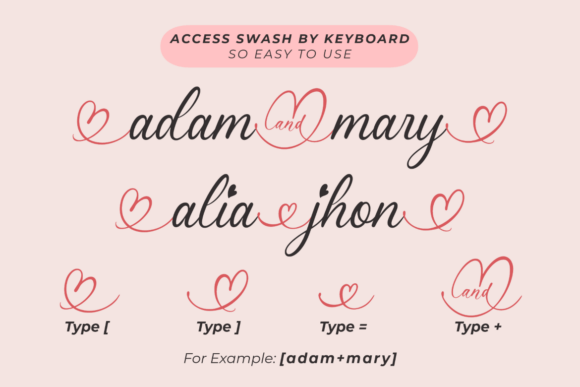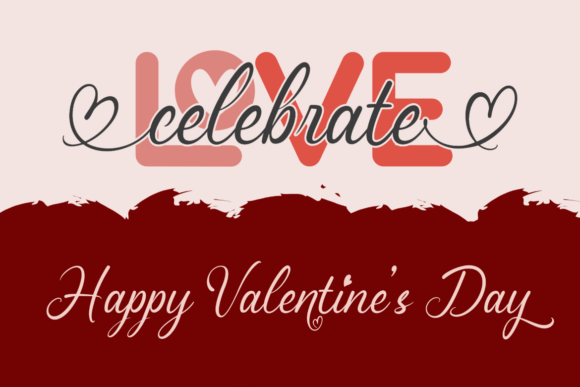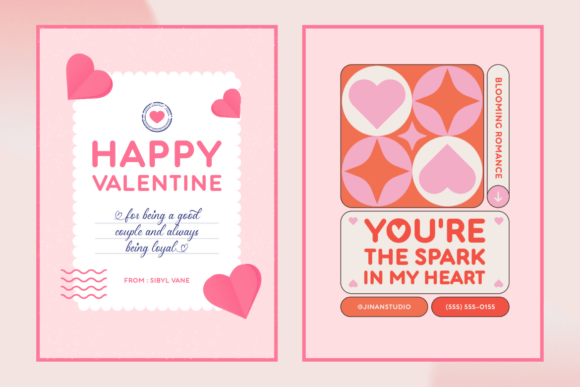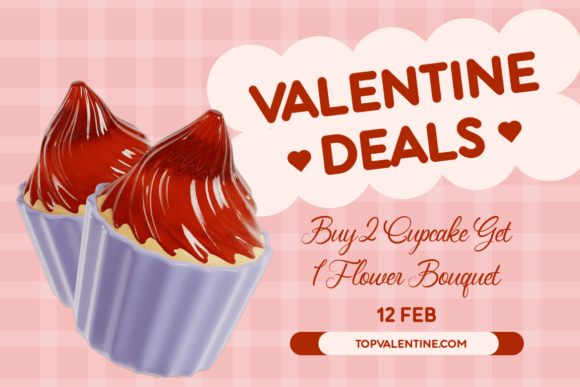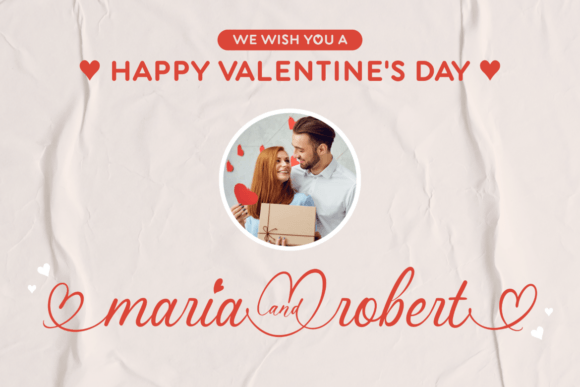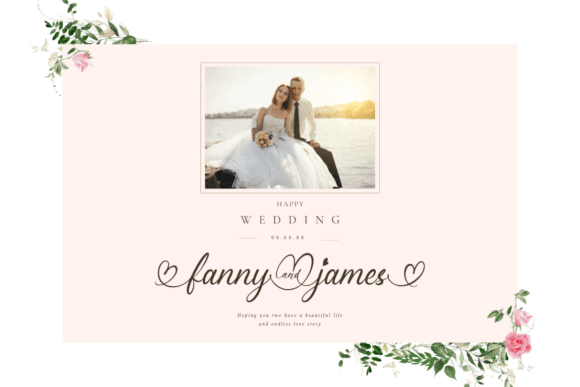
Blooming Romance Duo Font: Elevate Your Designs with Love and Sophistication
Are you looking for a font duo that embodies the essence of love and sophistication? Look no further than Blooming Romance, a captivating Valentine’s-centered font duo that is sure to make your designs stand out. This dynamic duo combines a bold, whimsical sans-serif typeface with a romantically delicate script font, perfect for infusing your creative designs with a sense of warmth and tenderness.
The Perfect Combination: Bold and Delicate
Blooming Romance introduces two unique fonts that work in harmony to create a stunning visual effect. The bold, whimsical sans-serif typeface is adorned with enchanting heart details that are guaranteed to make your headlines pop. The font’s playful and modern design makes it perfect for grabbing attention and adding a touch of fun to your designs.
Alongside the sans-serif typeface is a romantically delicate script font with fluid strokes, elegantly embellished with hearts. This font adds a touch of grace and sophistication to your text, making it perfect for designs that require a more elegant and refined look.
The harmonious fusion of playfulness and elegance in Blooming Romance makes it an excellent choice for a wide range of design projects. Here are just a few ideas to get you started:
- Valentine’s Day ventures: Create romantic and eye-catching designs for Valentine’s Day promotions, social media posts, and marketing campaigns.
- Wedding stationery: Add a touch of love and sophistication to your wedding stationery, including invitations, save-the-date cards, and thank-you notes.
- Love-focused brand imaging: Create a cohesive brand image for businesses that focus on love, relationships, and wellness.
- Social media graphics: Use Blooming Romance to create stunning social media graphics, including Facebook and Instagram posts, that are sure to grab attention.
- DIY crafts: Add a personal touch to your DIY crafts, including handmade cards, gift tags, and decorations.
Why Choose Blooming Romance?
So why choose Blooming Romance for your design projects? Here are just a few reasons:
- Unique and eye-catching: Blooming Romance is a one-of-a-kind font duo that is sure to make your designs stand out from the crowd.
- Versatile: The font duo is versatile and can be used for a wide range of design projects, from romantic and playful to elegant and sophisticated.
- High-quality: The font duo is high-quality and comes with a range of features, including multiple font weights and styles.
Tips for Using Blooming Romance
Here are a few tips for using Blooming Romance in your design projects:
- Experiment with different font combinations: Try pairing the bold sans-serif typeface with the delicate script font to create a stunning visual effect.
- Use it sparingly: Use Blooming Romance sparingly to add a touch of love and sophistication to your designs, rather than overusing it.
- Play with colors: Experiment with different colors and textures to add depth and interest to your designs.
Blooming Romance is a captivating font duo that is sure to infuse your creative designs with an essence of love and sophistication. With its bold, whimsical sans-serif typeface and romantically delicate script font, this dynamic duo is perfect for a wide range of design projects, from Valentine’s Day ventures to wedding stationery and beyond. So why not give Blooming Romance a try and see how it can elevate your designs to the next level?